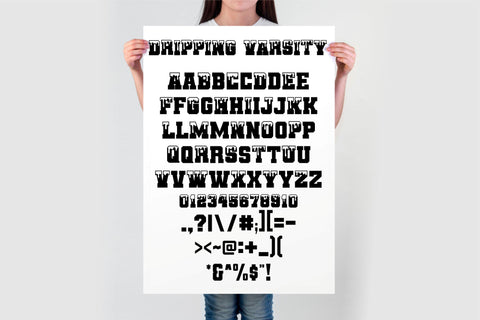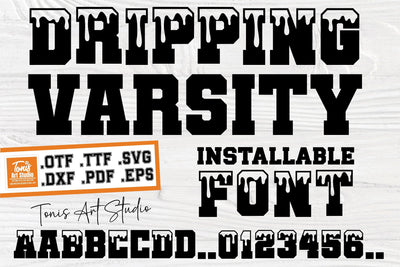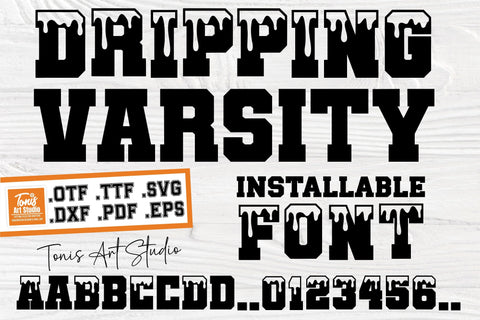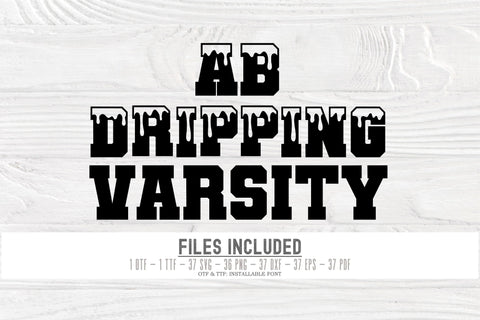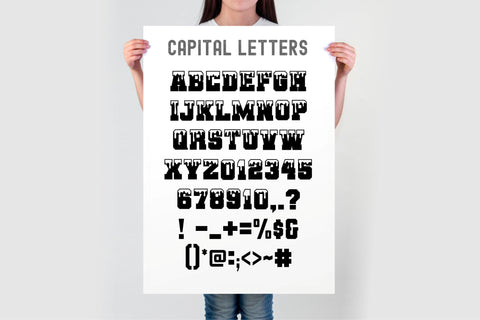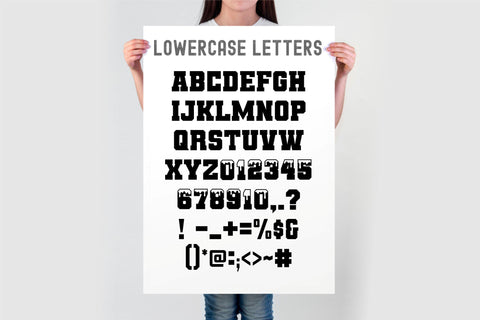
Varsity Font SVG, College Font Svg, Dripping Letters, University Font, Sports Font TTF DXF
Get that sports vibe with our Varsity Font svg! Perfect for athletic-themed designs, these font feature bold College Font and Dripping Letters styles that will make your projects stand out. This pack includes SVG, TTF, DXF, PNG, EPS, and PDF files, giving you endless possibilities for creating cool University Font artwork. Whether you're designing team shirts, event posters, or fan merchandise, these fonts will add a fun and edgy touch to your projects. Upgrade your font game today with our Varsity Font!